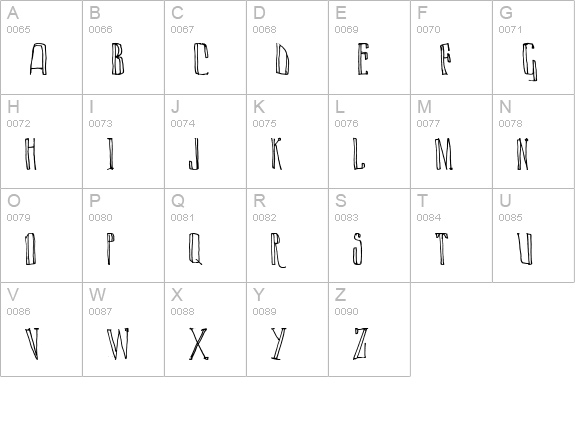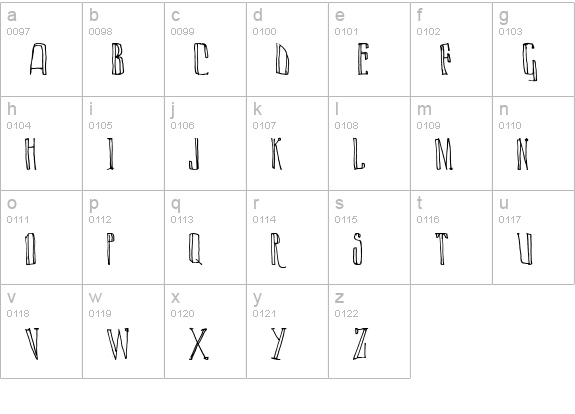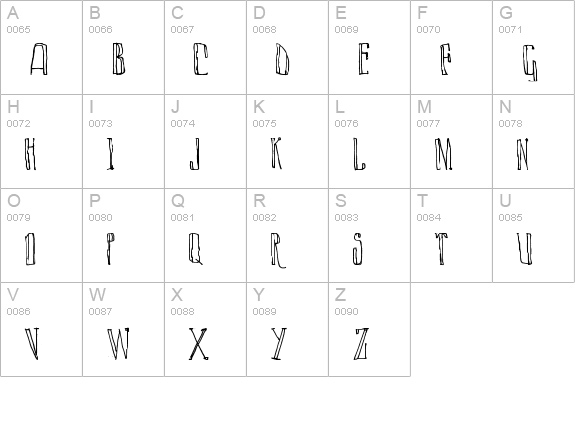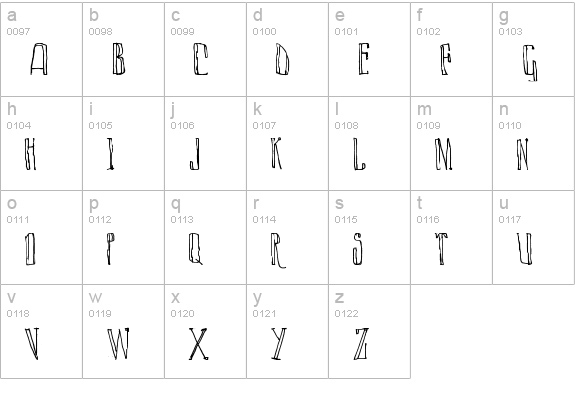
LAZY DAY Font Details
Introducing the LAZY DAY font, a whimsical and playful typeface perfect for adding a touch of fun to your designs. This font exudes a casual and laid-back vibe, making it ideal for projects that require a relaxed and carefree feel. With its rounded edges and handwritten style, LAZY DAY is sure to bring a sense of charm and warmth to any creative endeavor. Best of all, LAZY DAY font is available for free download at FontsMarket.com. Now you can easily incorporate this delightful font into your projects without any cost. Whether you're designing greeting cards, social media graphics, or party invitations, LAZY DAY font will add a unique and eye-catching element to your work. Embrace the free-spirited nature of LAZY DAY font and let your creativity shine!